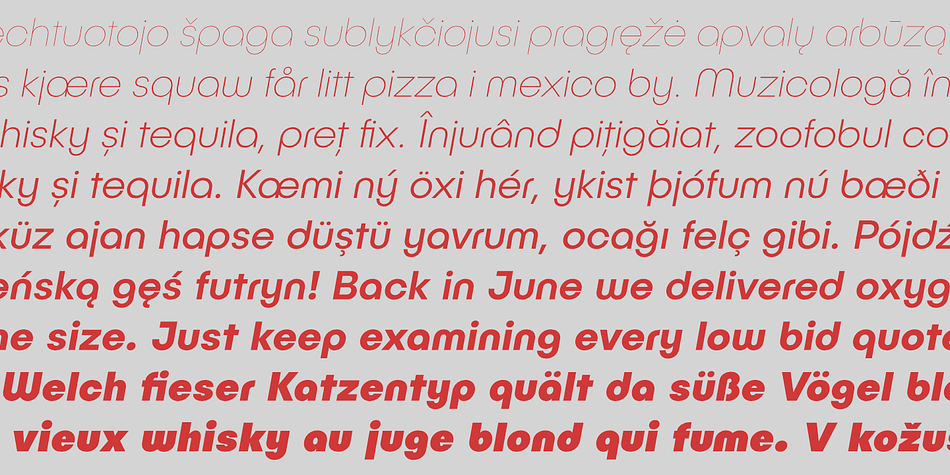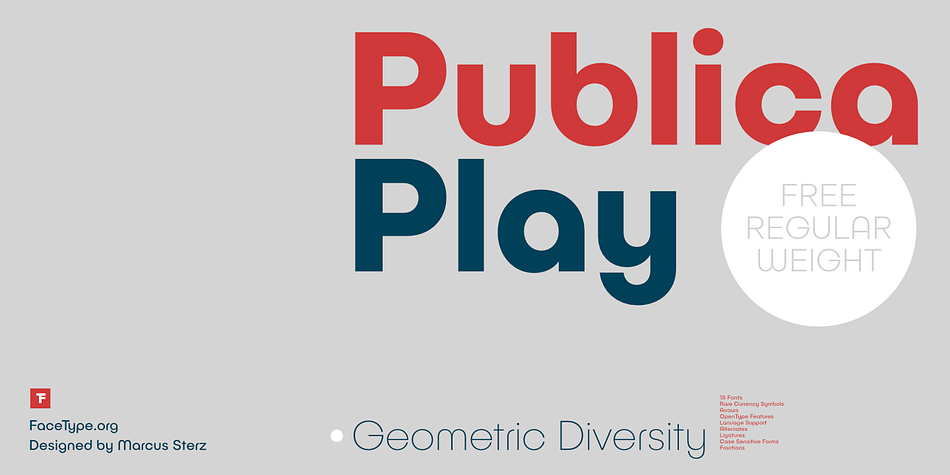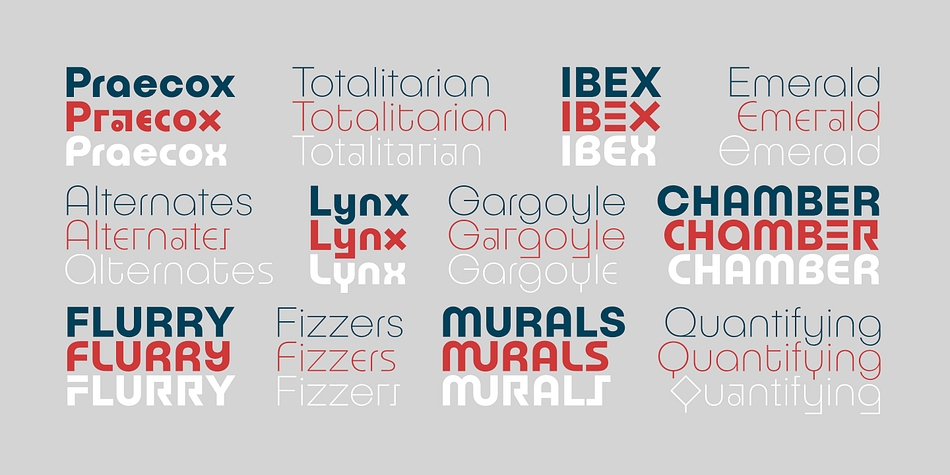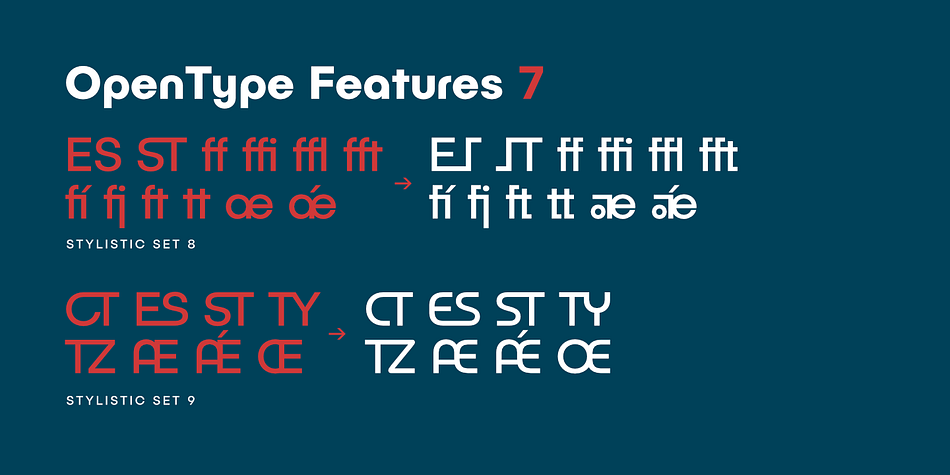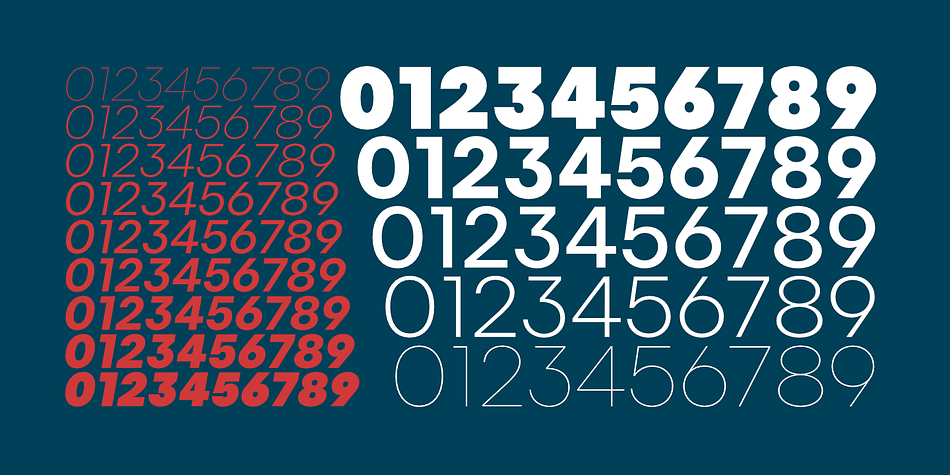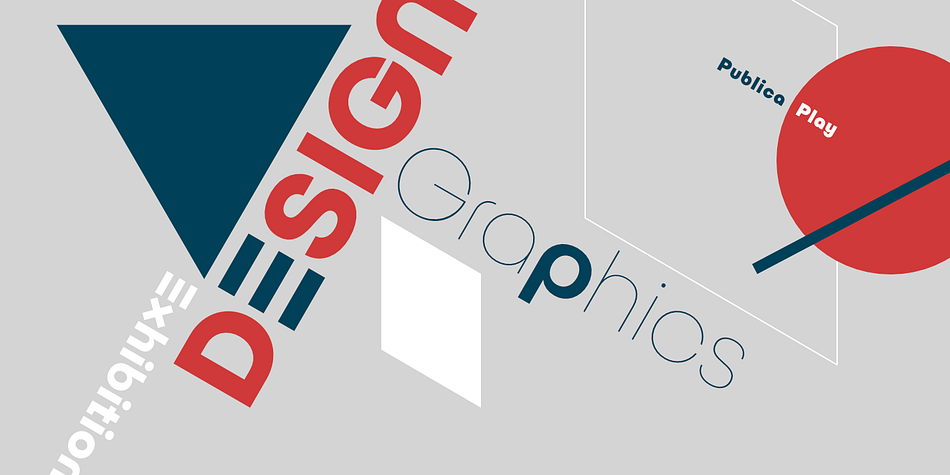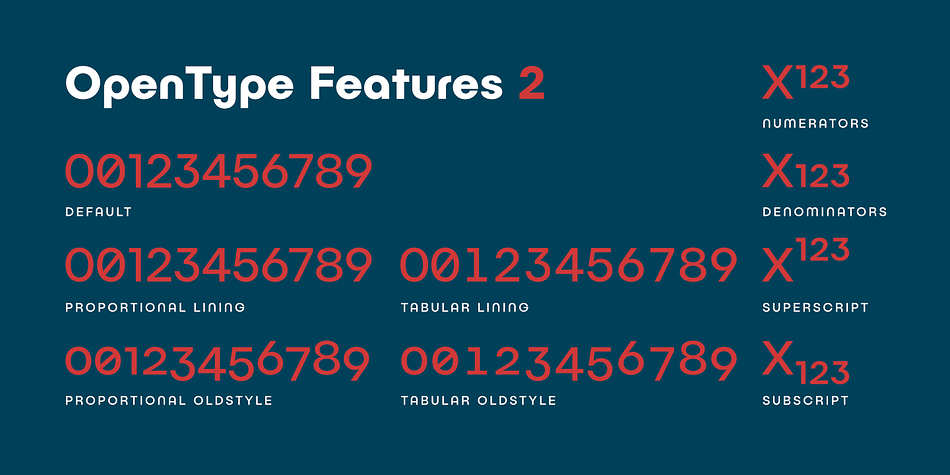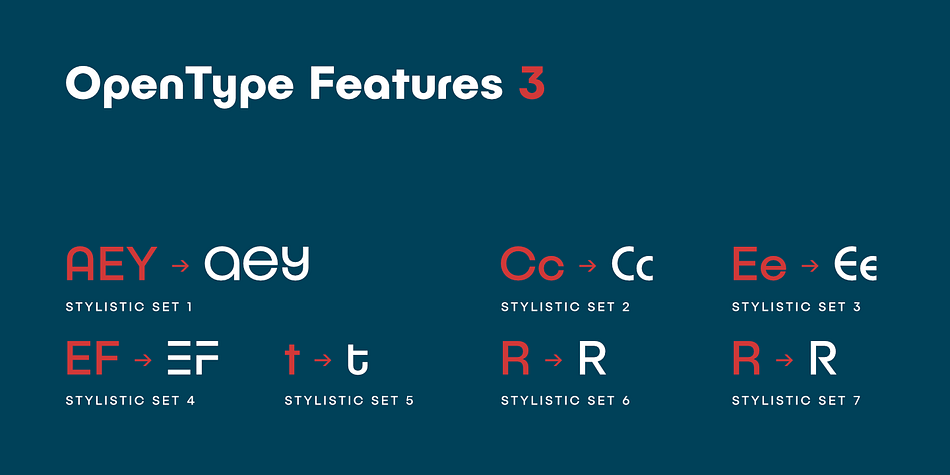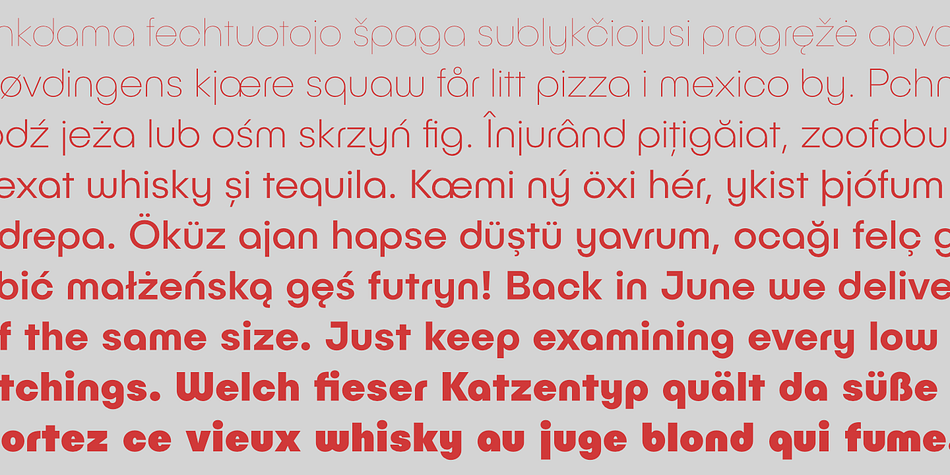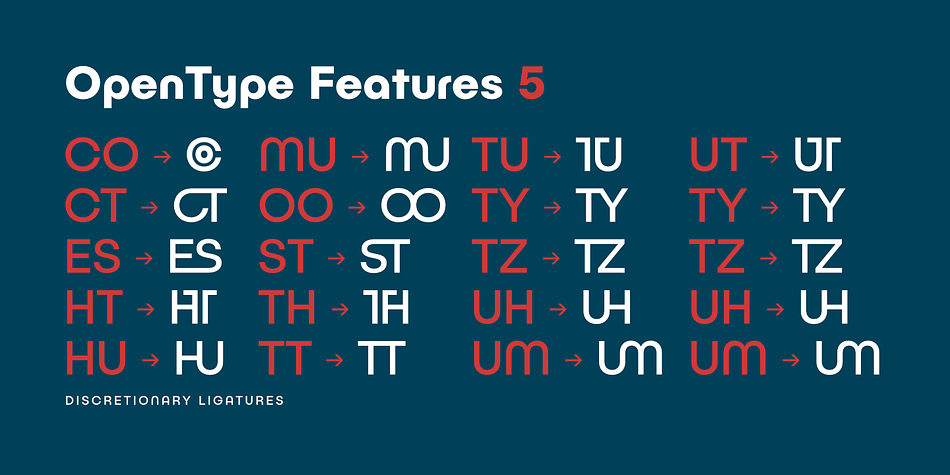
Publica Play is a sans serif font family. This typeface has eighteen styles and was published by FaceType.
Publica Play is Publica Sans’ playful sister. It comes with loads of subtle open type features, tabular options, rare currencies signs and symbols and arrows – ‘Publica Play’ has everything you need for playful design tasks.
Take a close look at our gallery (especially ‘OpenType Features 1–7’) to discover the versatility of Publica Play.
Alternates and Stylistic Sets
Give your typography a certain spin with the variety of alternate letters provided. Explore the Stylistic Sets provided.
Currency
Do you need to set prices in exotic countries? No problem: Publica Play gives you loads of rare currency symbols.
Case-Sensitive Forms
Sometimes you write in all caps and there are some symbols (e.g. brackets) that need some extra treatment to make it look perfect - that’s what case-sensitive forms are for.
Figures
Publica Play provides 6 sets of figures, like lining, tabular, old style, numerators ...
Discretionary Ligatures
Ligatures can make your logo or headline look spicy. So there are plenty of them.